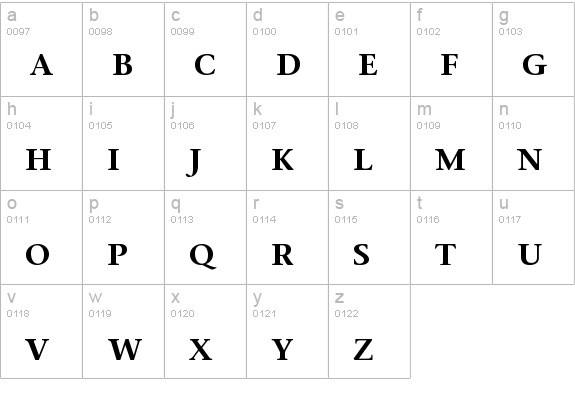
StoneSerifSCEF-SemiBold Font Details
StoneSerifSCEF-SemiBold is a sub-bold, structured variant in the StoneSerifSCEF typeface family \xE2\x80\x94 well suited to sub-headlines and emphasised passages.
StoneSerifSCEF-SemiBold font is a modern and versatile typeface that exudes sophistication and elegance. Its bold and authoritative appearance makes it perfect for headlines, branding, and editorial design projects. The font strikes a perfect balance between classic serif elements and contemporary design trends, making it a versatile choice for a wide range of design applications. What sets StoneSerifSCEF-SemiBold font apart is that it is available for free download at FontsMarket.com. This means that you can easily access and use this high-quality font in your projects without any cost. Whether you're a designer looking to elevate your typography game or an enthusiast looking to experiment with new fonts, StoneSerifSCEF-SemiBold font offers a valuable resource that combines style and accessibility. Download it today and enhance your design projects with this exceptional typeface.